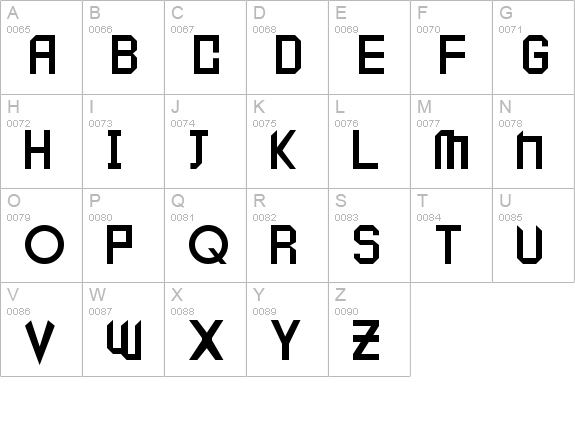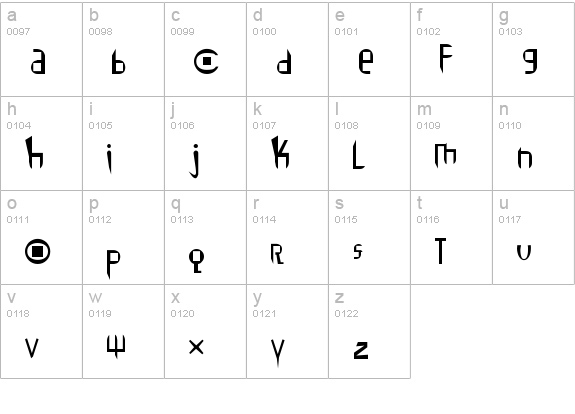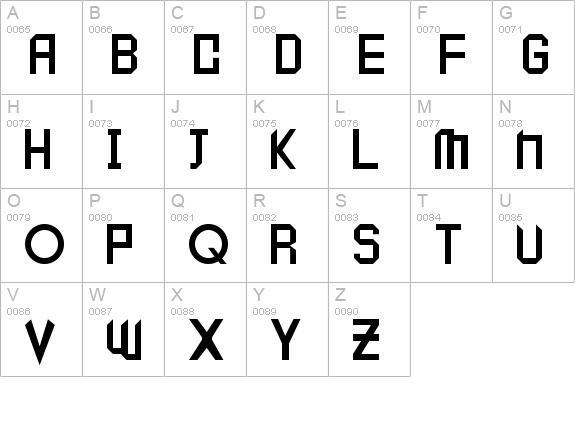
Peace1 Font Details
Peace1 is a captivating and elegant font that exudes a sense of tranquility and harmony. With its smooth curves and balanced letterforms, this font is sure to bring a sense of peace and serenity to any design project. Whether you're creating a logo, designing a website, or crafting a beautiful piece of typography, Peace1 adds a touch of sophistication and calmness. What sets Peace1 apart is not only its stunning aesthetics, but also the fact that it is completely free. That's right, you can freely download this remarkable font at FontsMarket.com, where it is readily available for anyone to enjoy. This means that you can harness the power of Peace1 without any restrictions or limitations, making it a valuable asset for both personal and commercial projects. The versatility of Peace1 is another reason why it has become a favorite among designers and typographers alike. With a wide range of weights and styles to choose from, including regular, bold, italic, and more, you'll have the flexibility to create captivating and unique designs that perfectly match your vision. Whether you're aiming for a minimalist and modern look or a more traditional and refined aesthetic, Peace1 has got you covered. Its clean and legible letterforms ensure that your message is conveyed with clarity and grace, while the subtle details and elegant curves add a touch of sophistication. So why wait? Discover the beauty and tranquility of Peace1 for yourself. Download it today for free at FontsMarket.com and elevate your designs to a whole new level of elegance and peace.